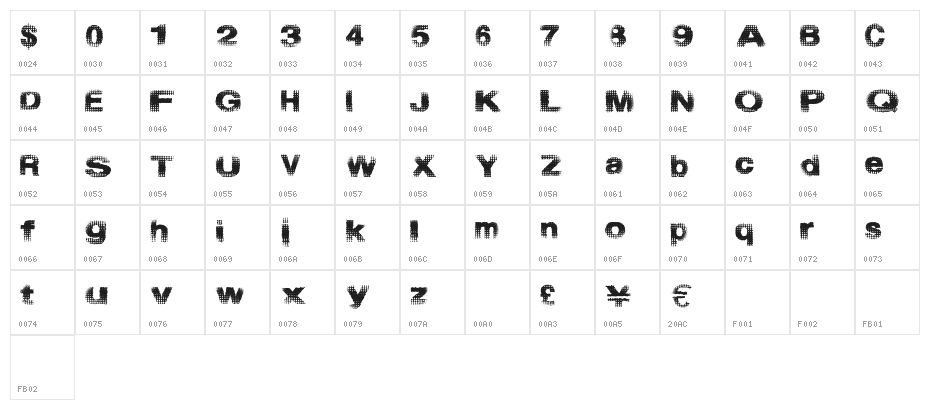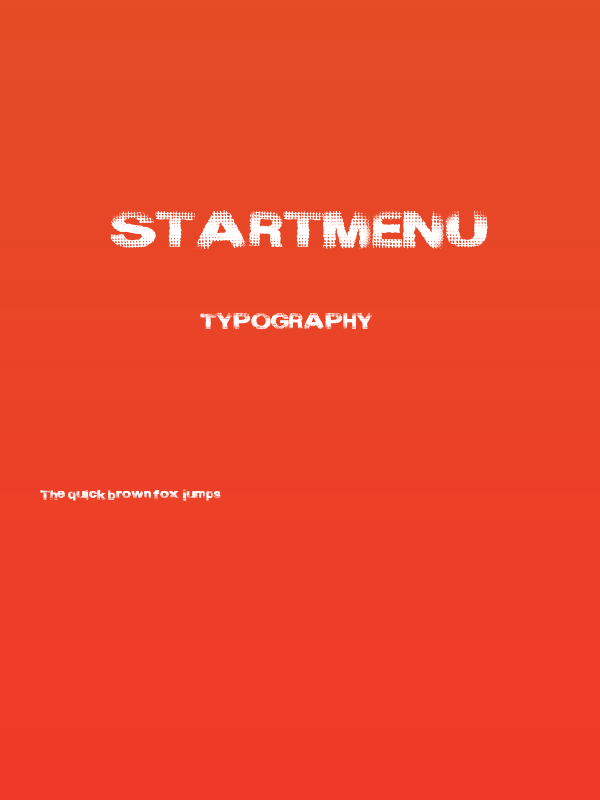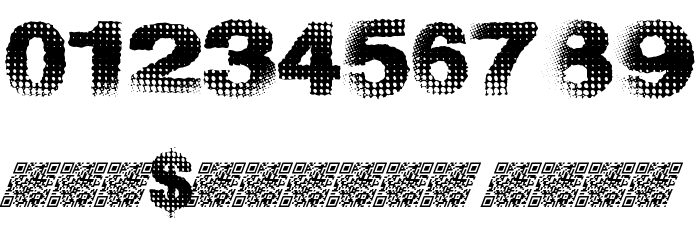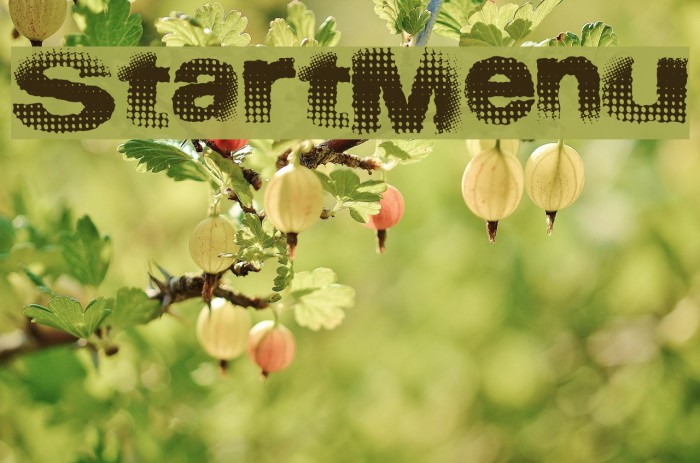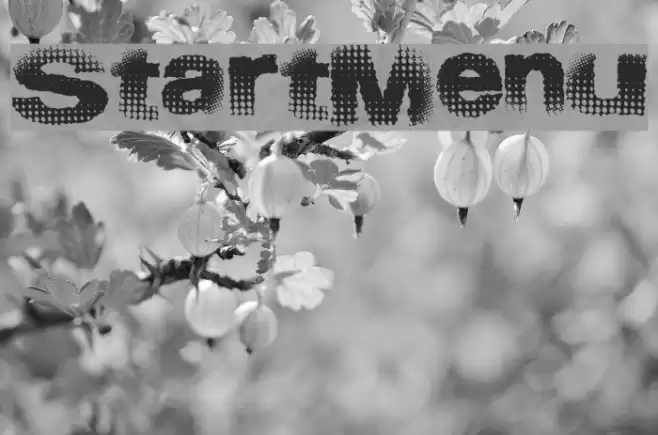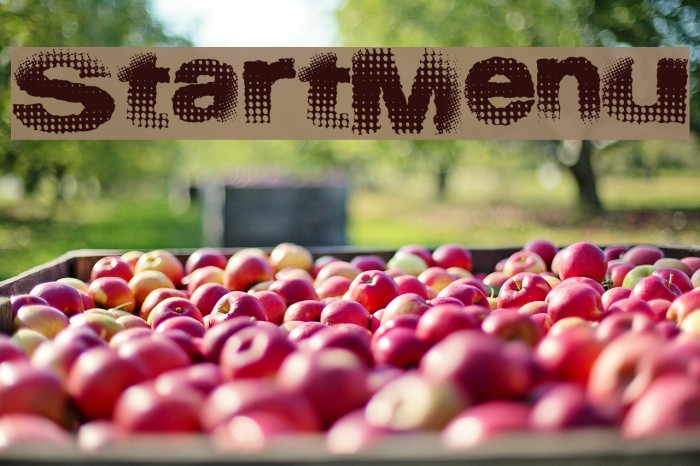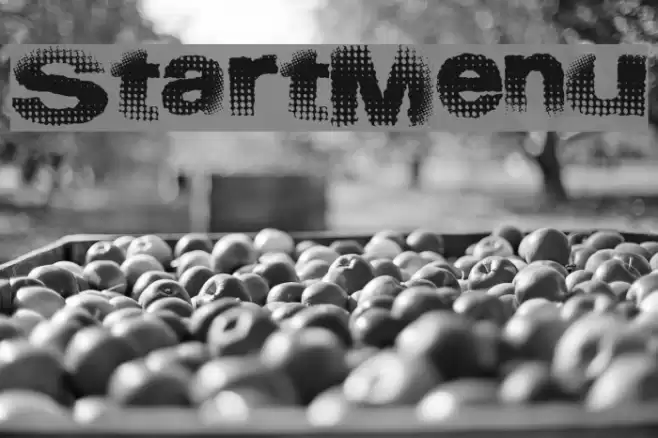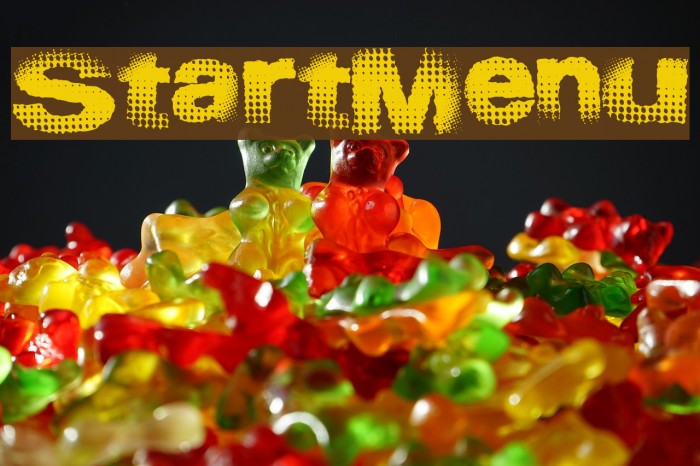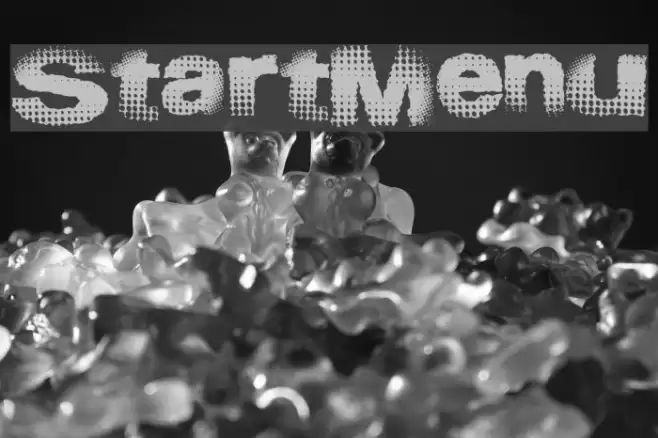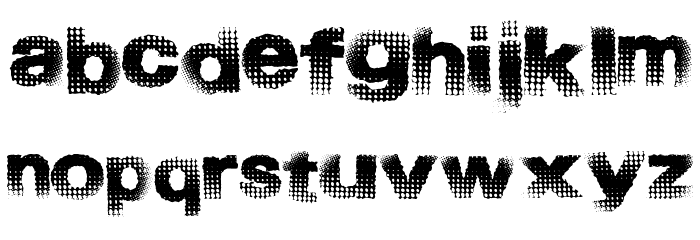
StartMenu Font
StartMenu Description
This font features a unique halftone pattern, creating a textured and dynamic appearance. Each character is composed of small dots that vary in density, giving the font a sense of depth and movement. The uppercase and lowercase letters maintain a consistent style, with rounded edges and a bold presence. The numbers and special characters follow the same design, ensuring uniformity across all elements. This font's distinctive look makes it stand out, offering a modern twist on traditional typography.
| Proposed Projects | Ideal for posters, album covers, and digital art projects that require a bold and eye-catching typeface. |